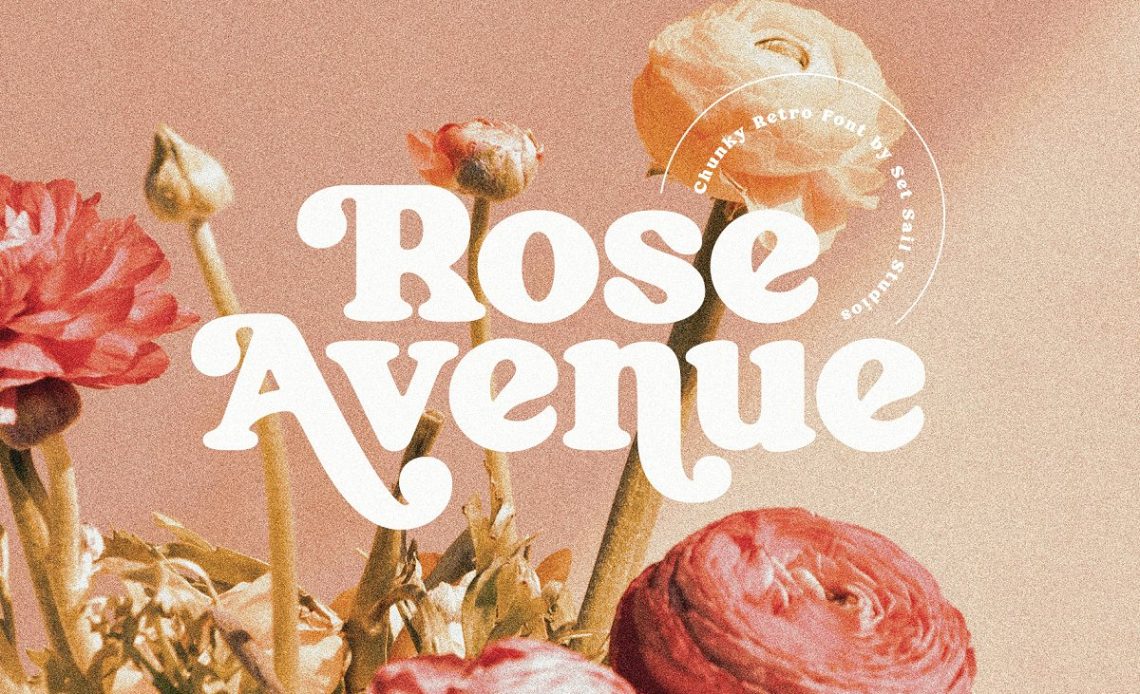
Transform your projects into pieces of art with Rose Avenue, the extra bold serif font with a retro twist. Created by Sam Parrett, this font family is perfect for anyone looking to add character and charm to their designs.
With its soft and rounded edges, Rose Avenue is both inviting and eye-catching, making it ideal for logos, headers, and even product packaging. Its chunky typography brings an air of nostalgia to any project while remaining modern and fresh.
Not only does Rose Avenue include 70 additional special characters, but it also boasts a range of alternate versions and ligatures that can be accessed with ease. These additional features allow for a diverse range of custom text arrangements that are sure to elevate any project to the next level.
Rose Avenue supports a multitude of languages, including English, French, Italian, Spanish, and many more, making it accessible to a global audience. And with its user-friendly access to alternate characters and ligatures, using this font has never been easier.
Whether you're a designer, blogger, or entrepreneur, Rose Avenue is the perfect addition to your creative arsenal. It's bold, beautiful, and versatile, allowing you to create unique and captivating designs that stand out from the crowd.